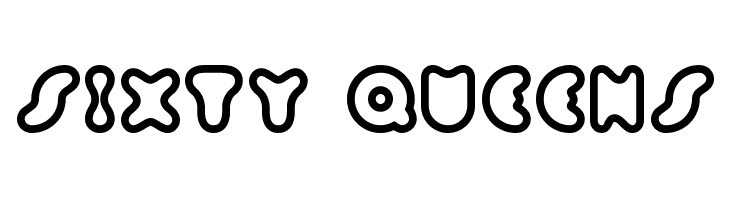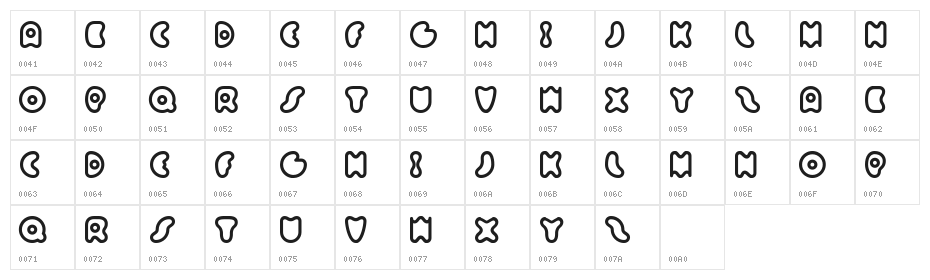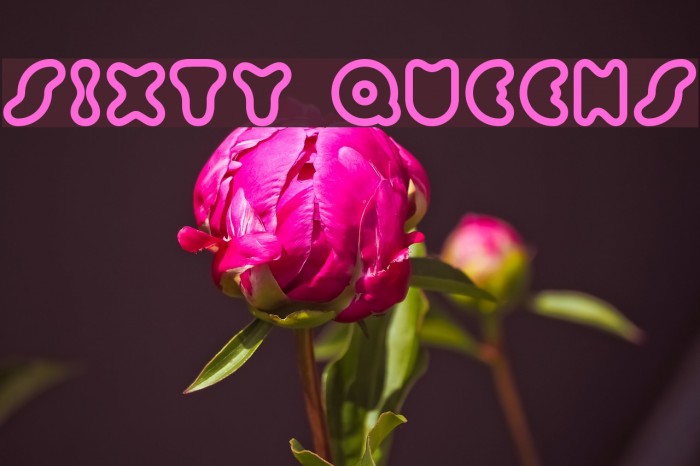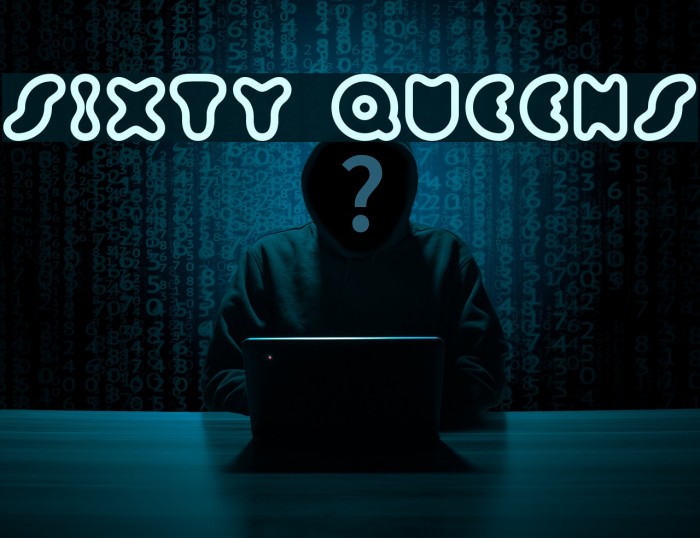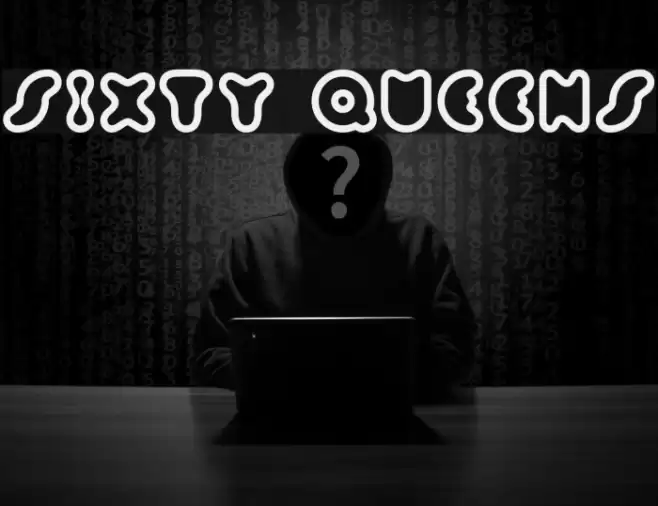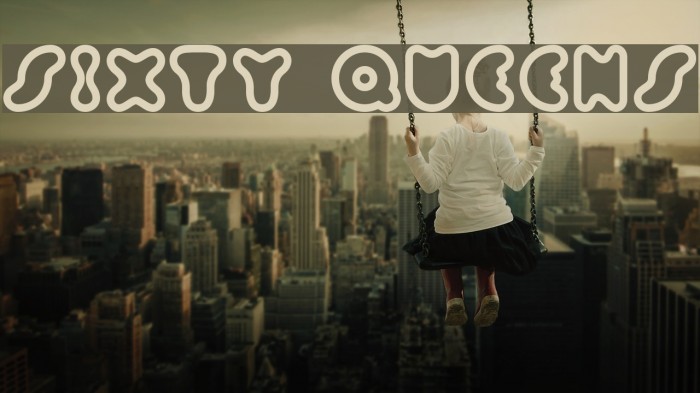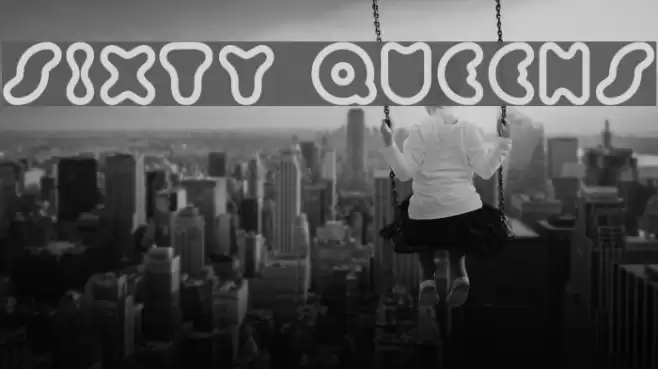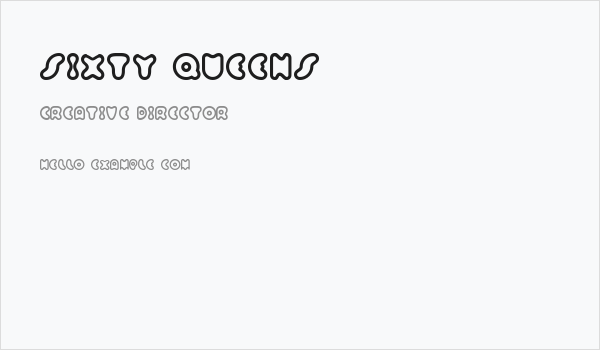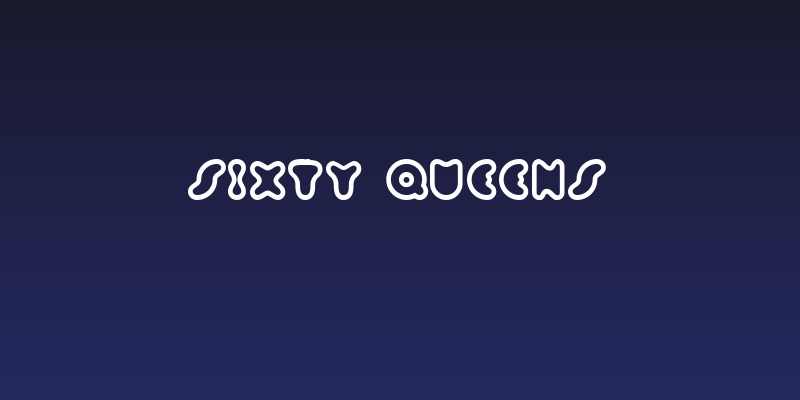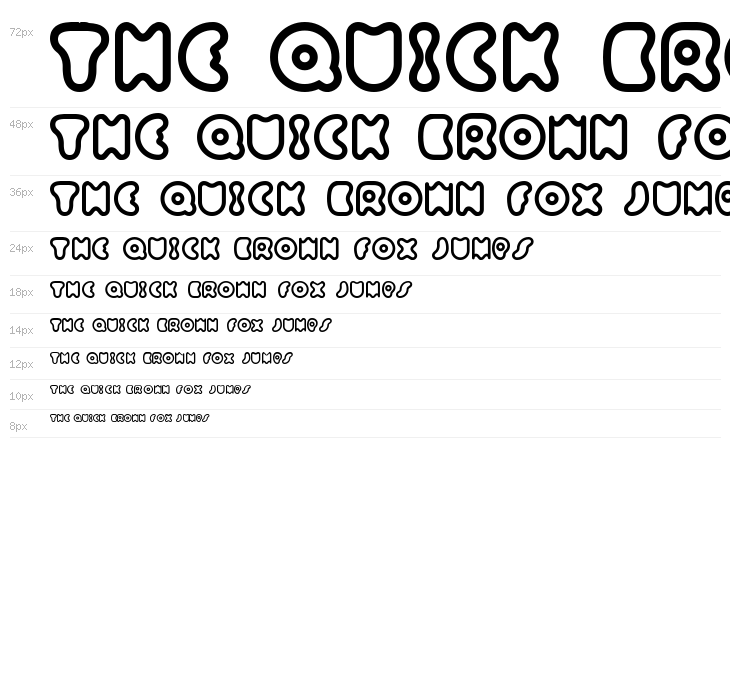
Sixty Queens Font
Sixty Queens Description
This playful and bold font features a unique bubble-like outline that gives each character a distinct and eye-catching appearance. The letters are rounded and have a consistent thickness, creating a uniform look across the alphabet. The style is reminiscent of retro or cartoon designs, making it ideal for projects that require a fun and informal touch. The uppercase and lowercase letters maintain the same whimsical style, ensuring versatility in various design contexts. The numbers and special characters are equally bold and maintain the playful aesthetic, making this font suitable for creative and engaging designs.
| Overall Style | Retro, Playful |
| Proposed Projects | Ideal for children's books, playful branding, party invitations, and retro-themed designs. |